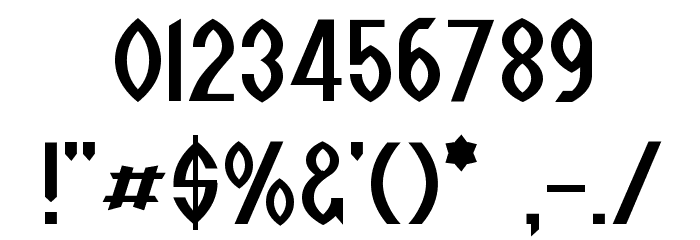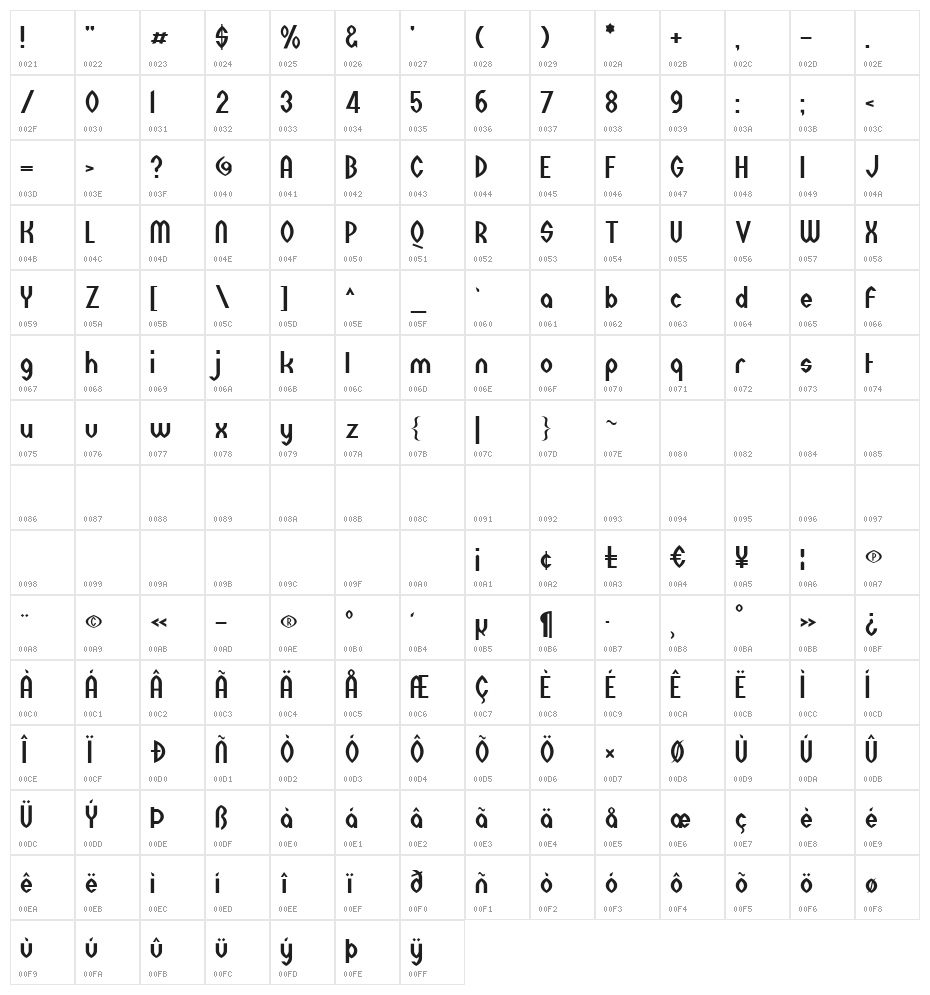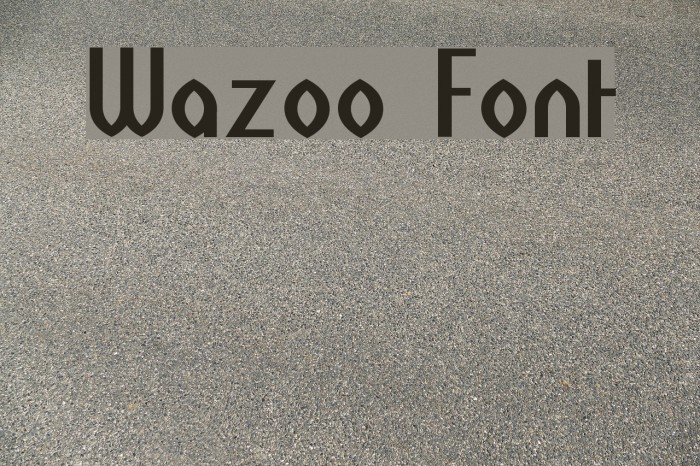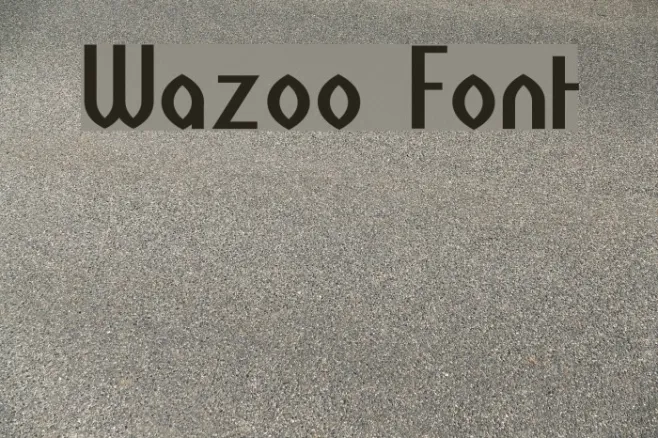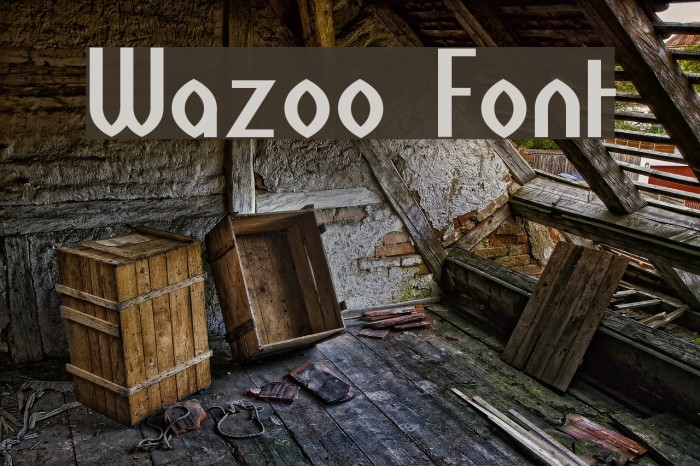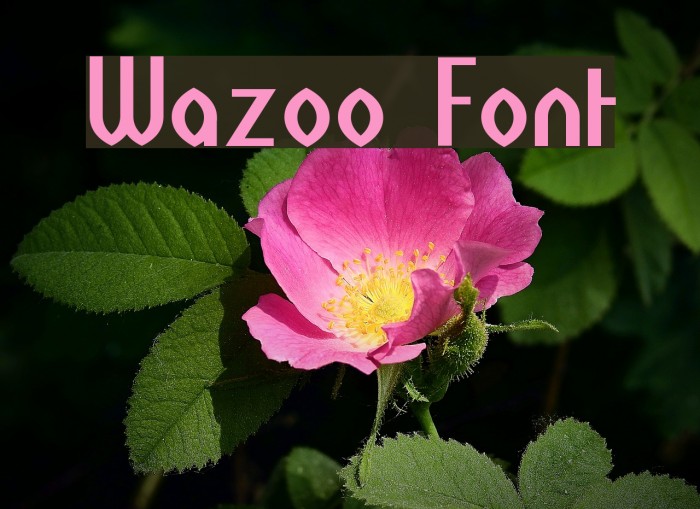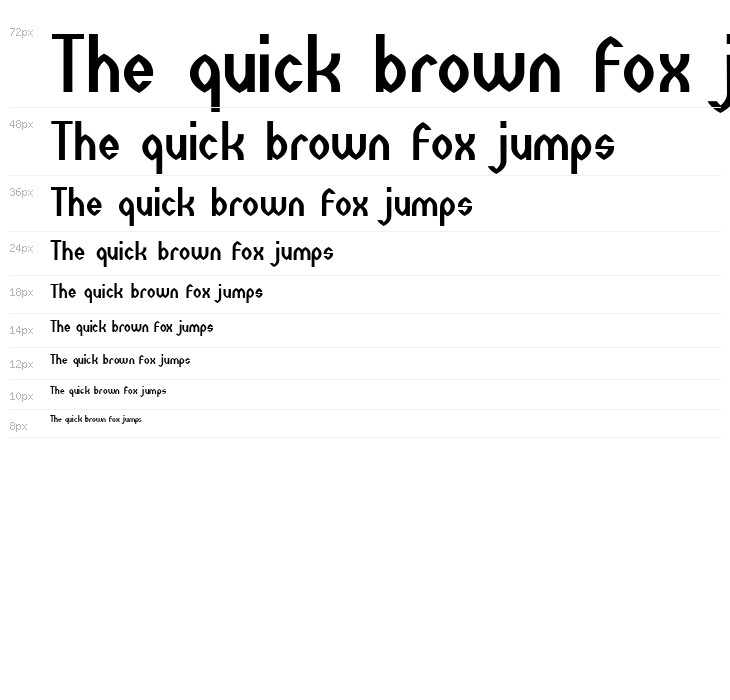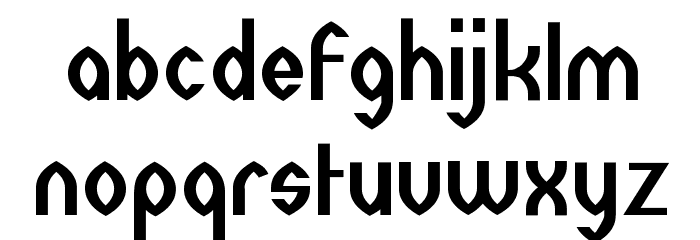
Wazoo Font
Wazoo Description
This font features a bold and geometric design with a distinct Art Deco influence. The uppercase letters are characterized by their tall, narrow shapes and sharp angles, giving them a modern and stylish appearance. The lowercase letters maintain the geometric theme, with consistent stroke widths and unique character shapes that add a playful yet sophisticated touch. The numerals are clear and easy to read, following the same geometric style. Special characters are creatively designed, enhancing the font's overall aesthetic. This font is perfect for projects that require a bold and eye-catching typeface.
| Proposed Projects | This font is suitable for branding, posters, headlines, and any design project that requires a bold and modern aesthetic. |